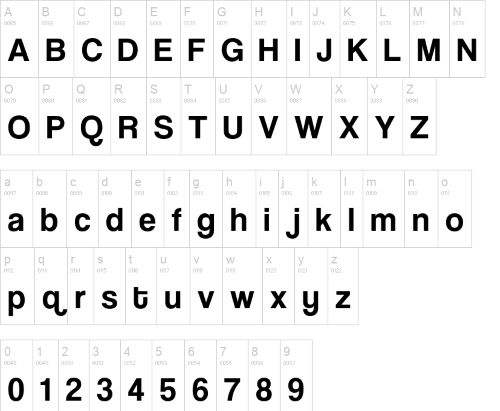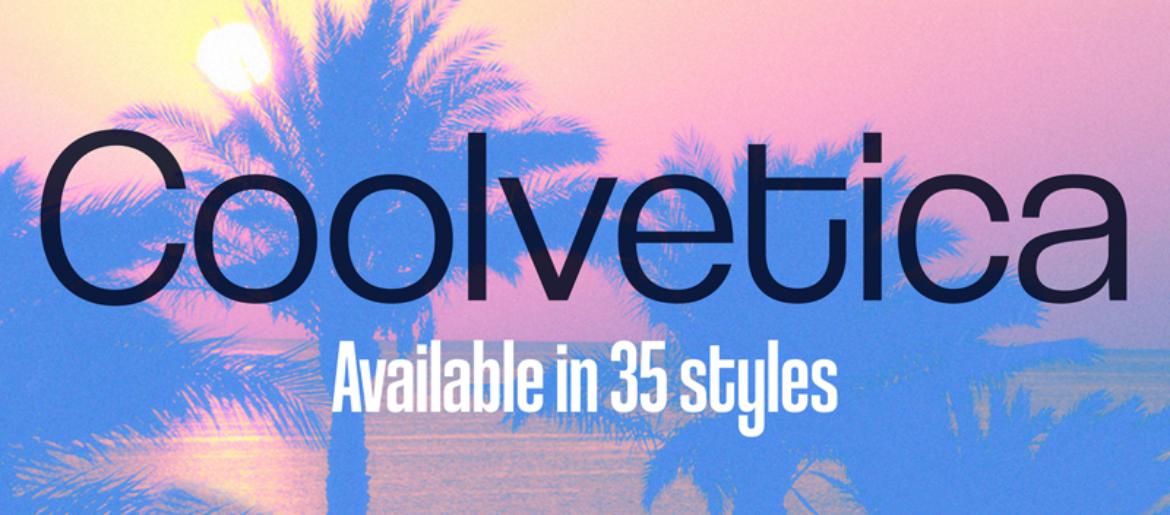
Coolvetica Font
Coolvetica Font channels a retro, 1970s-inspired aesthetic with smooth curves, tight spacing, and a distinctly playful sans-serif style. Designed as a fun reinterpretation of Helvetica’s spirit, it feels bold, friendly, and energetic. Coolvetica works beautifully in logos, posters, headlines, and branding that aims for nostalgic charm with a modern twist.
➤ Font Name: Coolvetica
➤ Designer: Typodermic Fonts
➤ Style: Sans serif